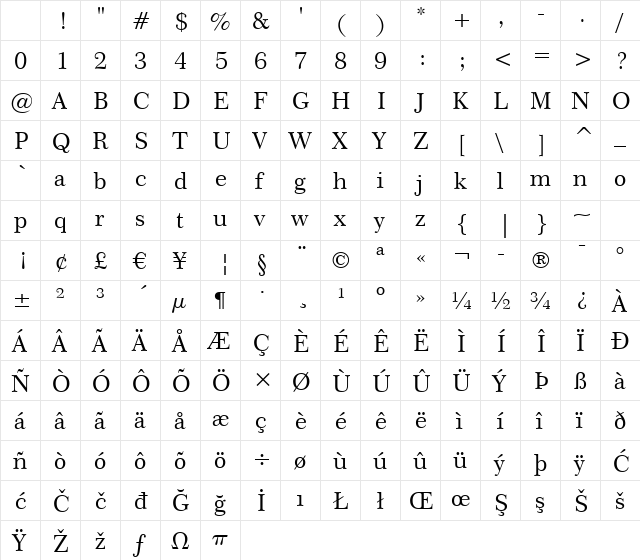
Complete Century751 BT Roman glyph index. Displaying only characters natively supported by Century751 BT Roman font.
Century751 BT is a composed and adaptable typeface that performs quietly and consistently across a wide range of design contexts.